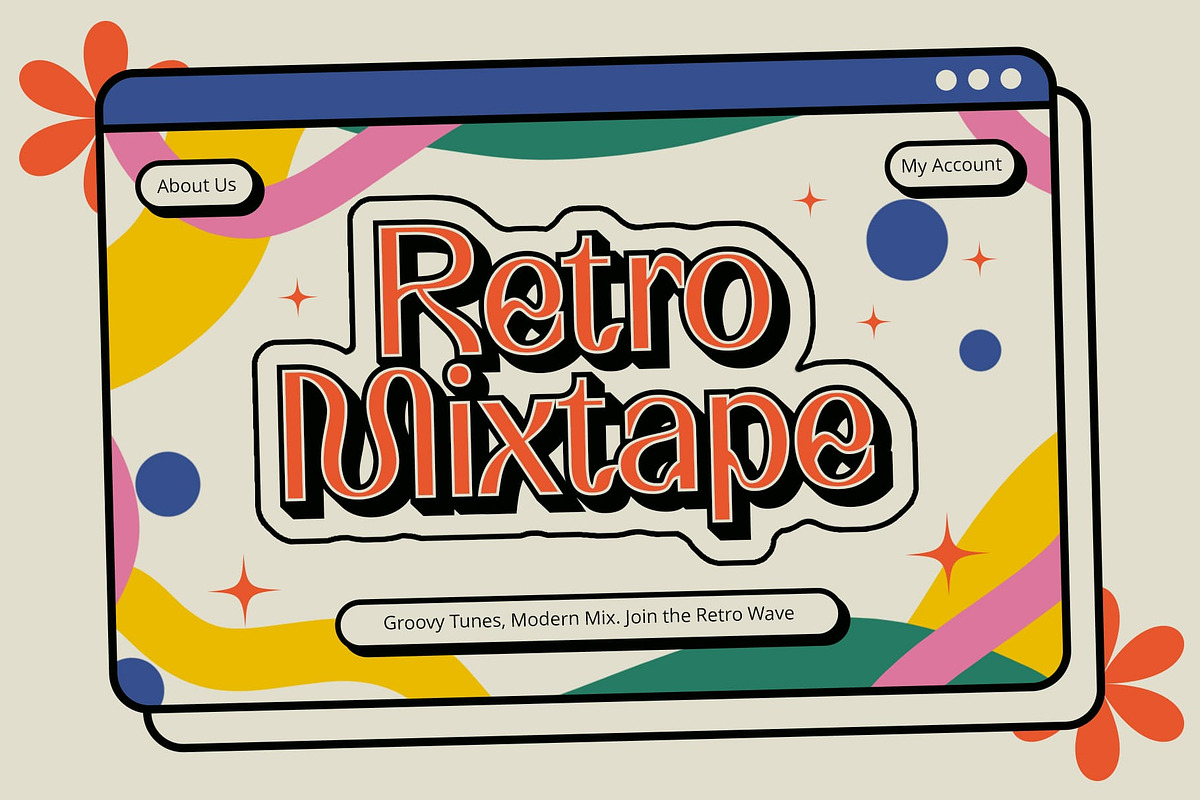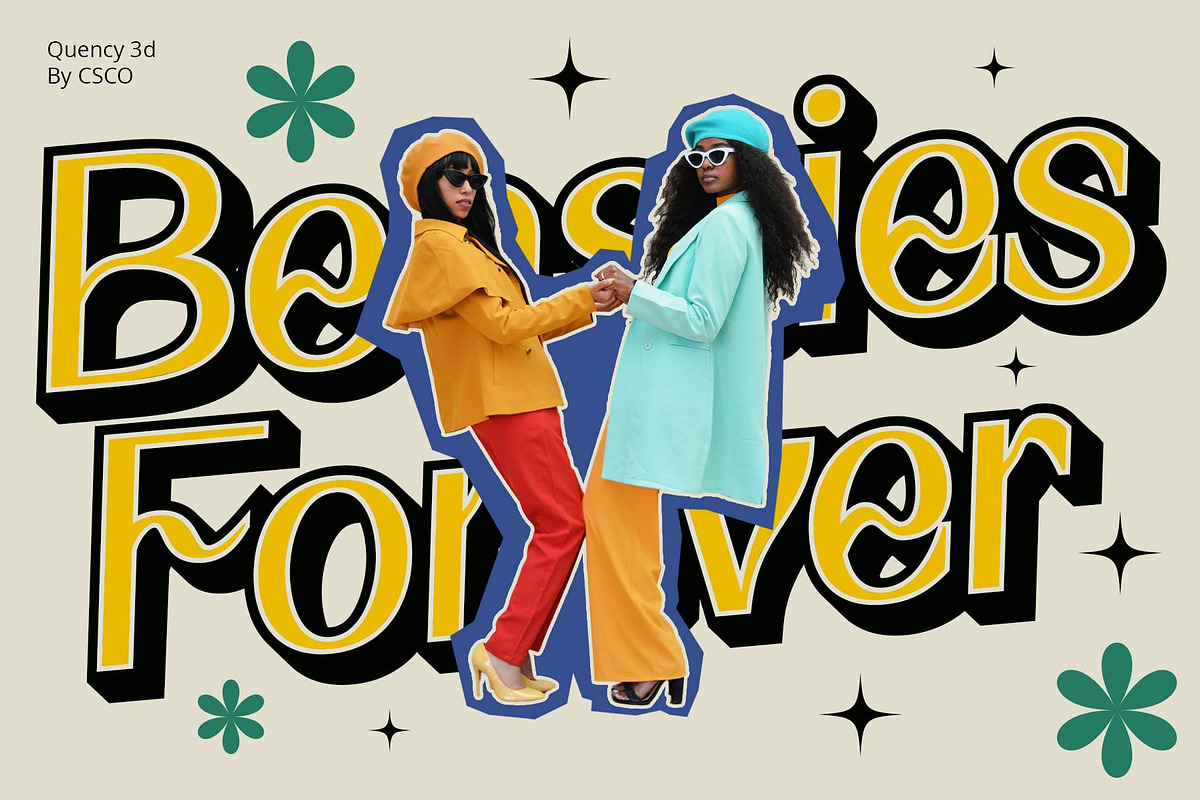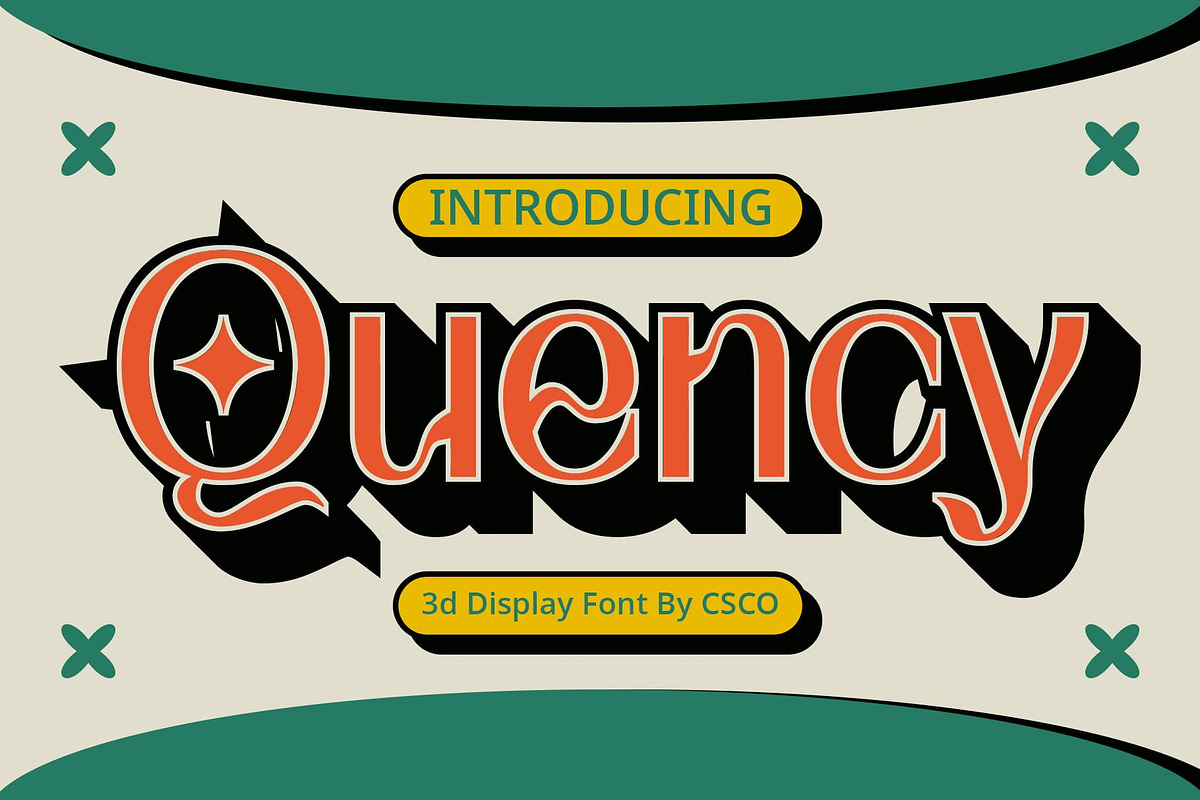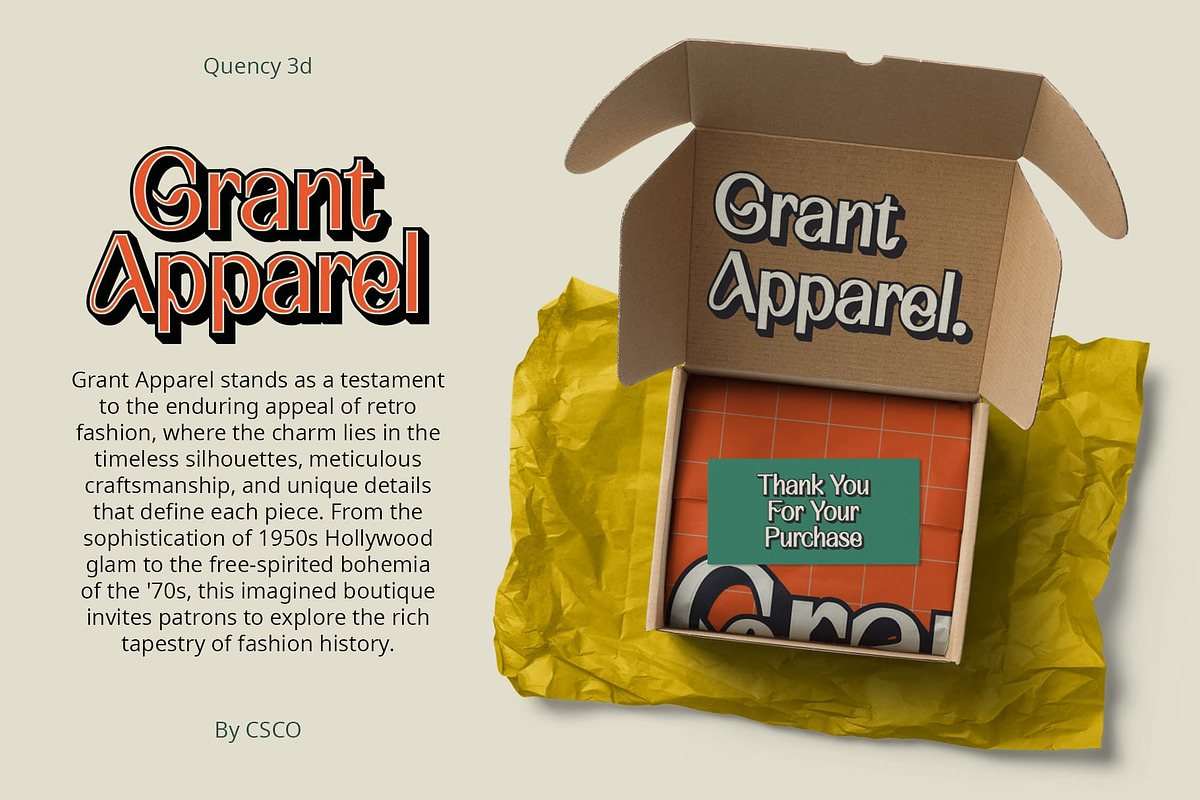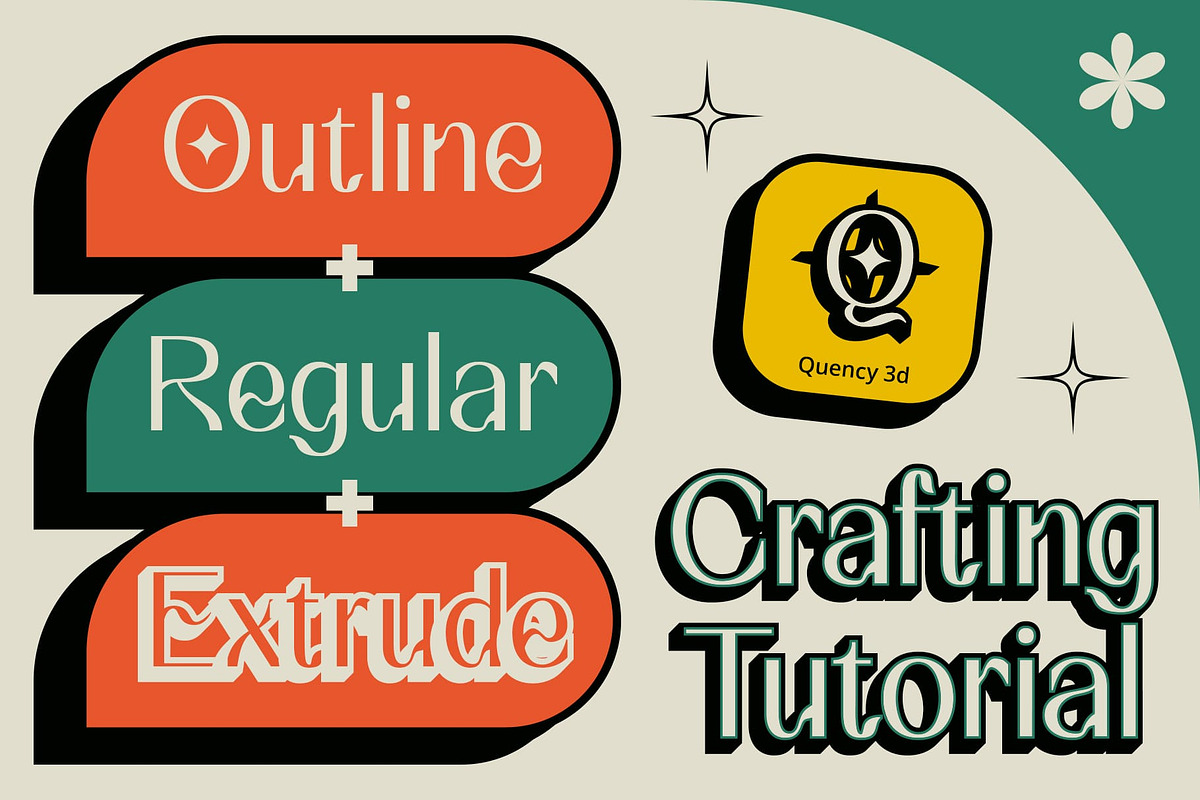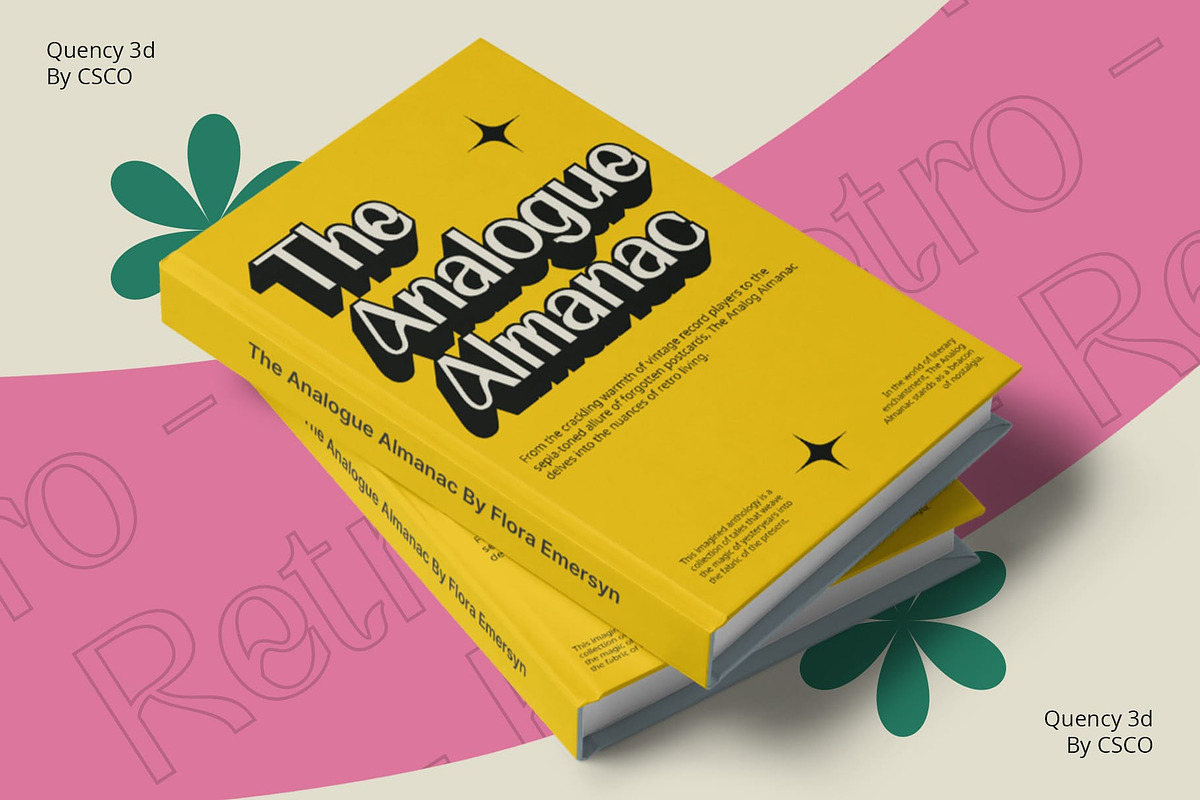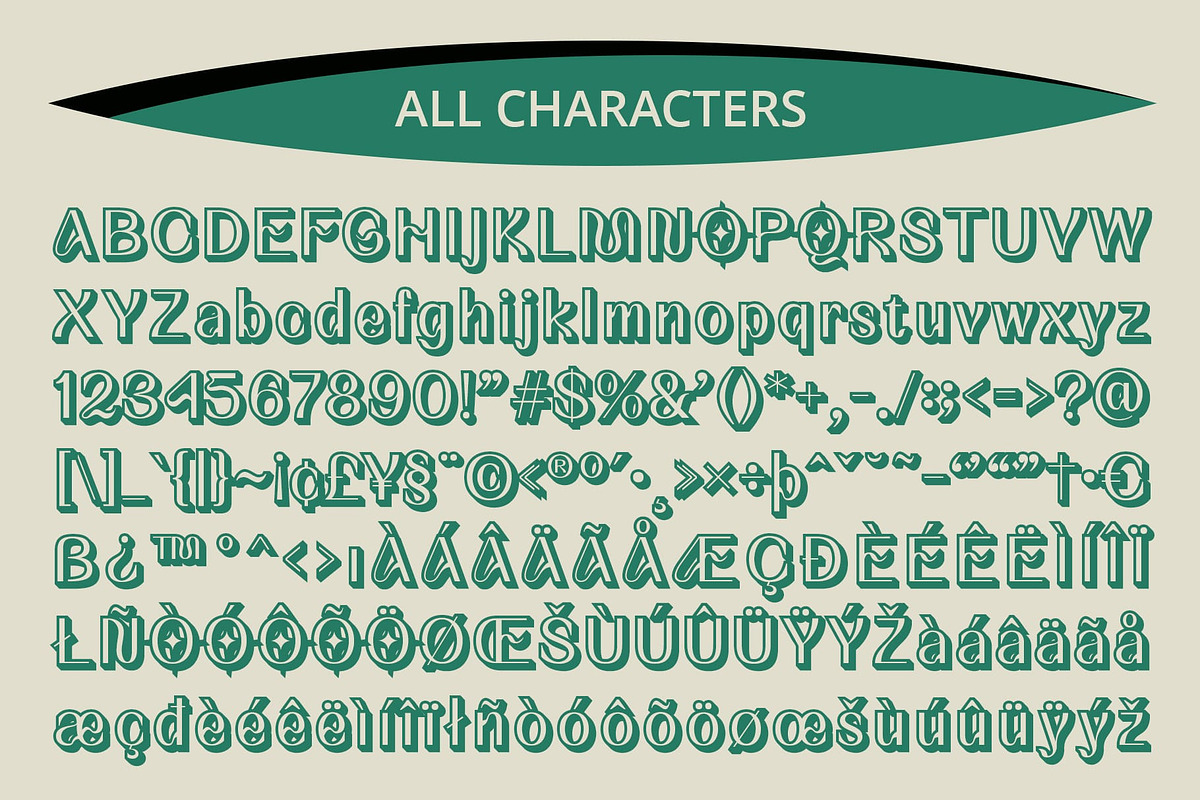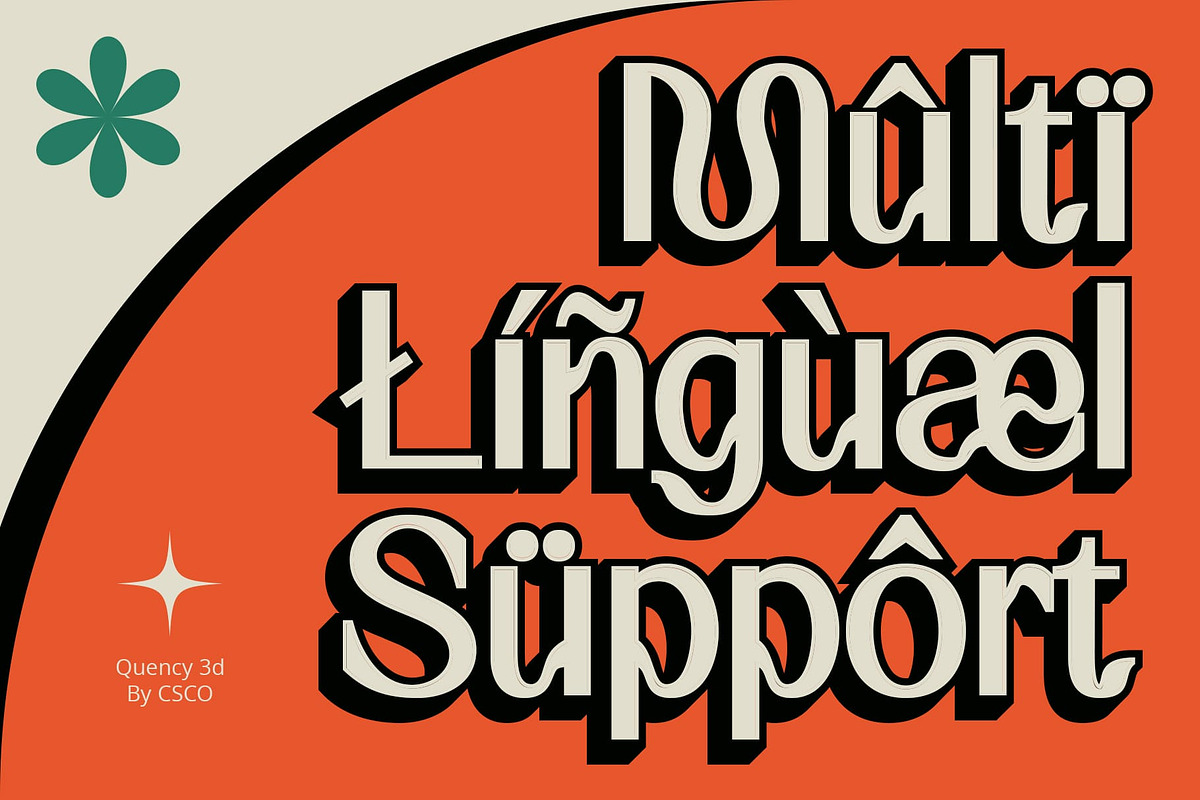
Quency 3D
Quency 3D: A Retro Resurgence
A Nostalgic Odyssey Embark on a nostalgic journey with Quency 3D, where retro vibes seamlessly blend with modern design, evoking a sense of vintage allure.
Dimensional Flourish This font goes beyond the ordinary display; its characters pop with a delightful 3D effect, adding a layer of intrigue that captivates the viewer’s imagination.
A Visual Extravaganza Step into a visual spectacle as Quency 3D transforms display projects. Its retro charm, coupled with dynamic 3D elements, makes every design a vibrant and eye-catching experience.
Versatility Redefined This font isn’t just a font; it’s a design companion. Elevate your creations, from posters to branding, with this versatile typeface that effortlessly merges retro aesthetics with contemporary flair.
In Conclusion: Quency 3D – A Fusion of Retro and Dimensional Charm This font is a celebration of design history and innovation. With its retro undertones and 3D prowess, this font revitalizes any project, ensuring it stands out in a world of visual content. Immerse yourself in the blend of retro resurgence and dimensional charm with this font.